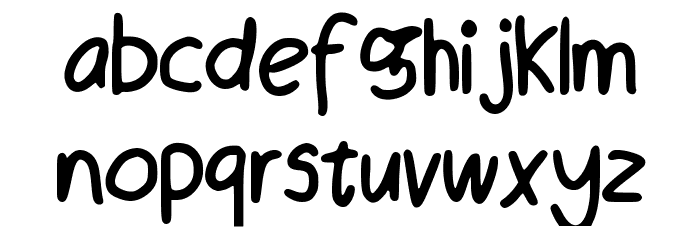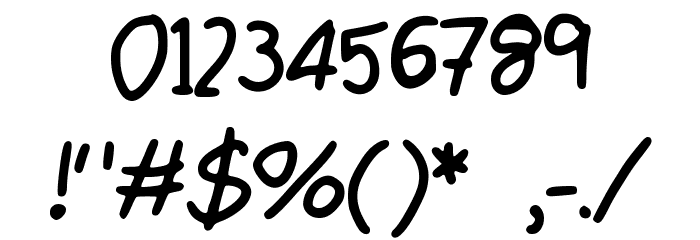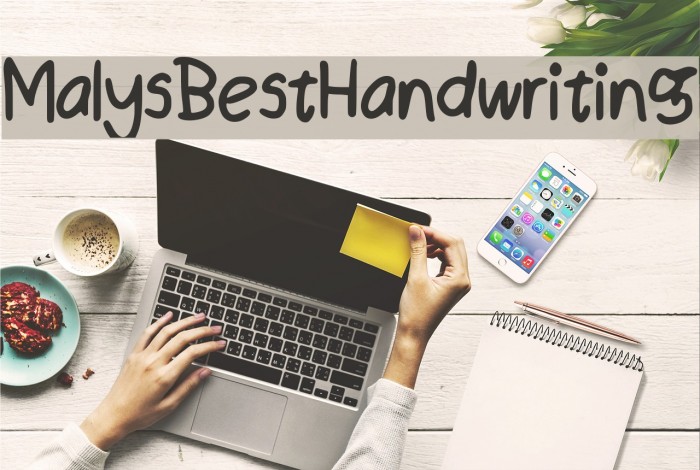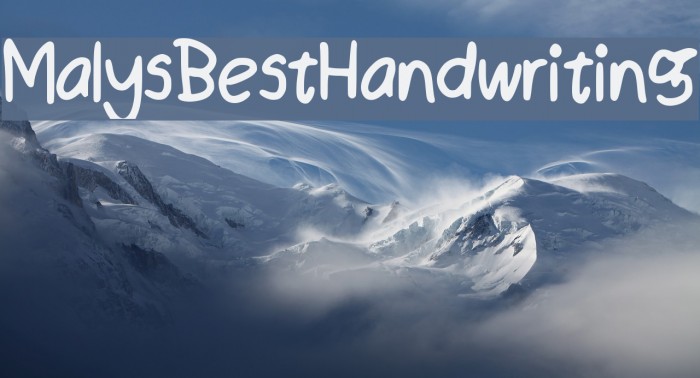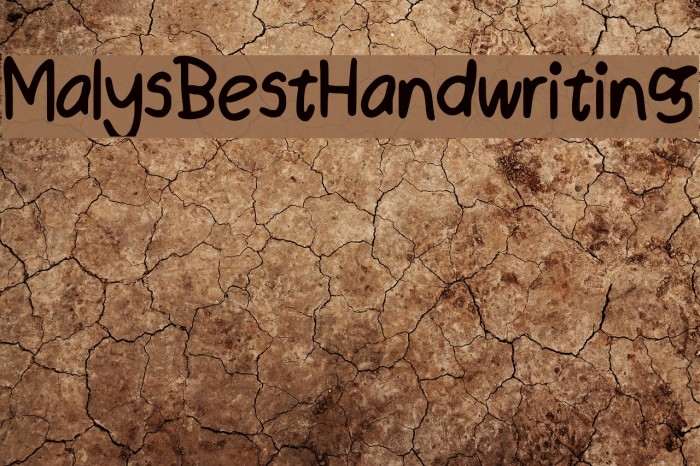
Maly_s_Best_Handwriting Font
This font exudes a playful and casual handwritten style, characterized by its rounded and slightly irregular letterforms that mimic natural handwriting. The uppercase and lowercase letters maintain a consistent flow, with a slight tilt that adds to its informal charm. The numerals and special characters are crafted with the same playful aesthetic, making them blend seamlessly with the alphabet. This font's overall appearance is friendly and approachable, ideal for projects that require a personal touch.
A playful, casual handwritten font with rounded, slightly irregular letterforms.
- Proposed Projects: Ideal for greeting cards, personal notes, children's books, and informal branding projects.
- Overall Style: Casual, Playful
- Use Case: Headlines, Informal text, Personal projects